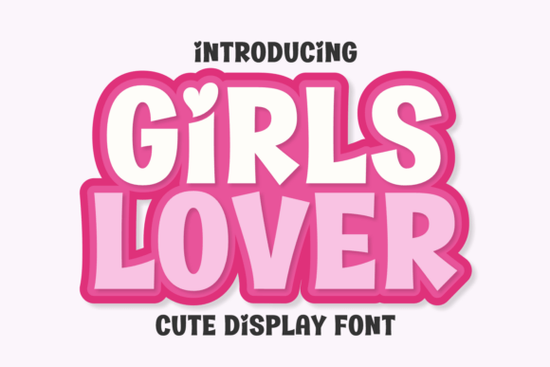
If you’re searching for a display font that instantly adds warmth and energy to your designs, the Girls Lover font from Creative Fabrica is worth a close look. This sweet, high-energy typeface combines chunky, rounded letterforms with a friendly, modern silhouette that feels unapologetically playful. You’ll spot right away why it’s a go-to for children’s toy packaging, bold fashion branding, and eye-catching social media posts. The letter shapes are built to be as readable as they are cheerful exactly what you need when you want text to feel like a burst of joy. Designers often push that sticker-like quality further by adding bright pink gradients or thick outlines, making this playful typeface a favorite for nursery wall art and birthday party stationery.
What style of projects suit the Girls Lover font best?
You’ll get the most impact from Girls Lover when you use it at large sizes. Think big, bold headlines on kids’ apparel, colorful titles for lifestyle blogs, or the main message on a party invitation. Because the letterforms are so chunky, the font holds up beautifully on busy backgrounds, which makes it ideal for product mockups and print-on-demand designs. If you’re crafting a sticker sheet or a YouTube thumbnail aimed at a younger audience, this font does the heavy lifting without needing a lot of extra decoration. Its natural bubbly energy works well with candy-colored palettes, but you can also rein it in with pastels for a softer nursery look.
How does Girls Lover compare to other popular display fonts on Creative Fabrica?
Girls Lover sits firmly in the “cute and spotless” corner of the display font world. But depending on the mood you need, there are several Creative Fabrica options that shift the energy in interesting ways.
Understanding where Girls Lover fits in this spectrum helps you pick the right tool. It’s the one you reach for when the brief says “happy, welcoming, and instantly likable.”
Can you use Girls Lover font for print-on-demand and branding?
Absolutely. Because the font’s shapes are so distinctive, it prints cleanly on t-shirts, tote bags, and mugs without losing its charm. Many print-on-demand sellers pair it with crisp vector illustrations to create a cohesive kids’ collection. You can even customize it in your design software: add a thick, colorful outline in Illustrator or Affinity Designer to turn any word into a sticker-style graphic that doesn’t need additional clip art. For branding, its friendly personality works well for a children’s boutique logo, a daycare center’s signage, or the hero text on a toy box. Just keep in mind that as a display font, Girls Lover is meant for short phrases and titles you’ll want a simple sans serif for any body copy that needs extended reading.
What font pairing works with a chunky display typeface like Girls Lover?
A good rule of thumb: let Girls Lover take the spotlight and pick a quiet, simple partner for secondary text. Clean geometric sans serifs like Montserrat, Poppins, or similar fonts from Creative Fabrica’s library sit nicely underneath without competing. For a more handcrafted feel, a light and narrow handwritten companion can balance the weight of the chunky letters. Stick to neutral spacing and avoid adding extra strokes or bold styles to the secondary font that keeps the hierarchy clear and the overall design feeling cohesive. Test a few combinations on a mockup to see what feels right for your specific audience.
Quick checklist for your next Girls Lover project
- Start with bright, cheerful color palettes pinks, yellows, and sky blues bring out the font’s personality.
- Add a thick outline in your design software if you want that instant sticker look.
- Keep text short: It works best for headlines, not paragraphs.
- Try a gradient fill (pink to orange or purple to teal) to lean into the youthful, candy-like vibe.
- Pair it with a clean sans serif for any longer bits of information.
- Mock up your design on a tote bag or onesie to see how it holds up at different scales.